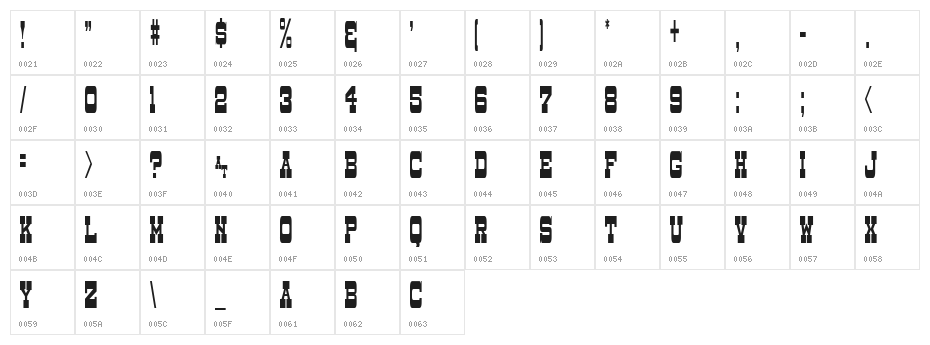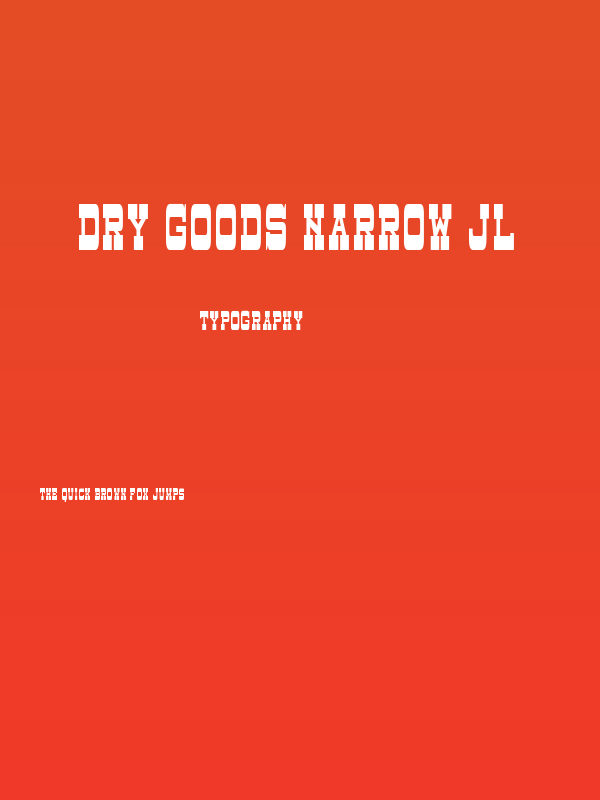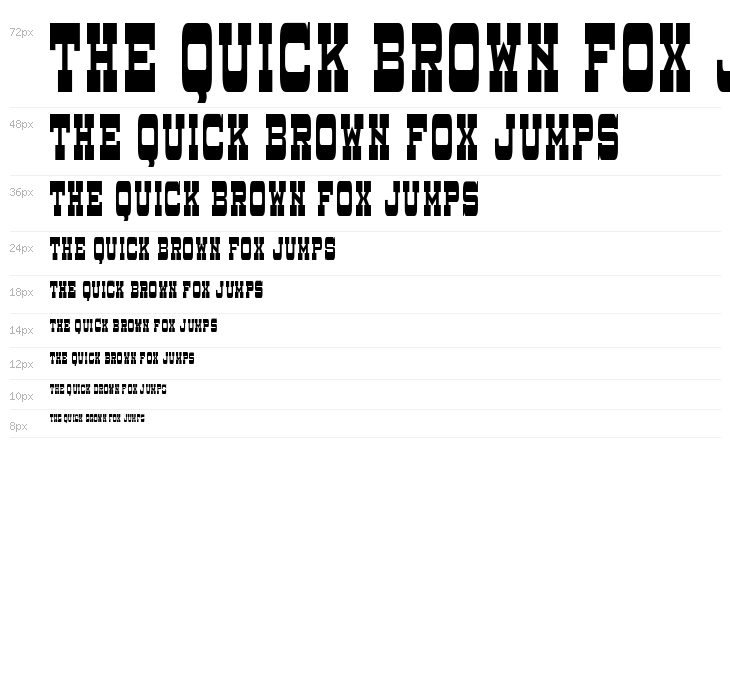
Dry Goods Narrow JL Font
Dry Goods Narrow JL Description
This font features a bold, condensed style with strong, block-like serifs that give it a robust and industrial appearance. The characters are tightly spaced, enhancing the compact feel of the typeface. The uppercase letters are particularly striking, with a uniform height and width that contribute to a cohesive look. The numbers and special characters maintain the same boldness and structure, ensuring consistency across all glyphs. This font's design is reminiscent of vintage signage and posters, making it ideal for projects that require a touch of retro flair.
| Proposed Projects | Perfect for vintage-themed posters, signage, branding, and packaging designs. |